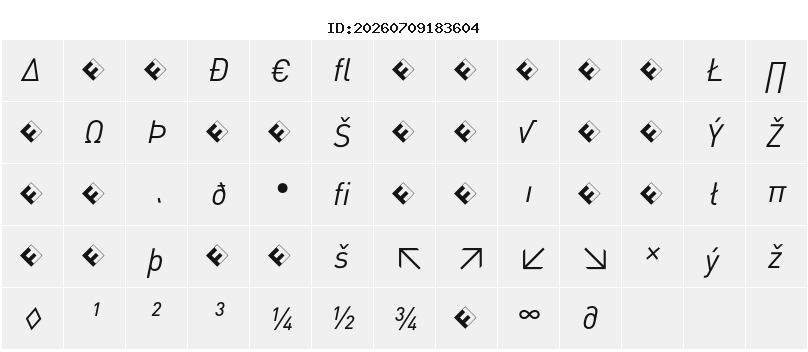
About DIN-RegularItalicExp.otf
DIN-RegularItalicExp.otf is a modern, elegant sans-serif font designed for ultimate readability and visual harmony. Perfect for branding, headlines, web design, and print materials.